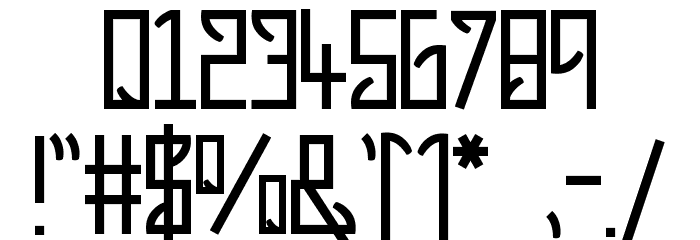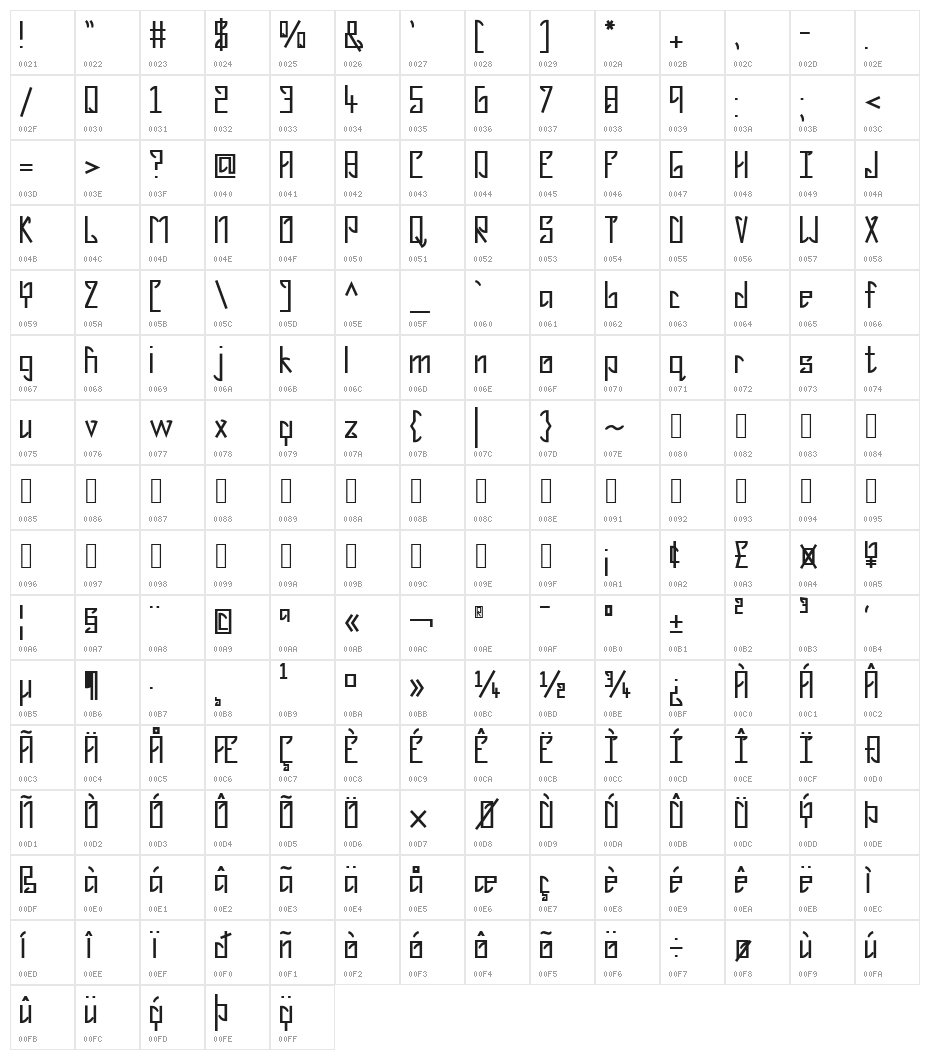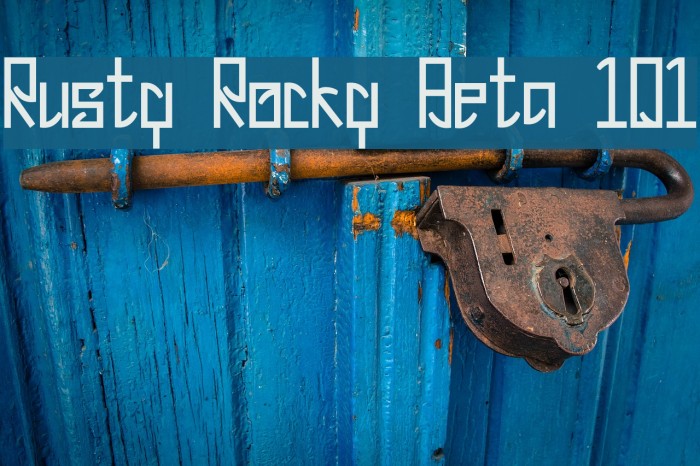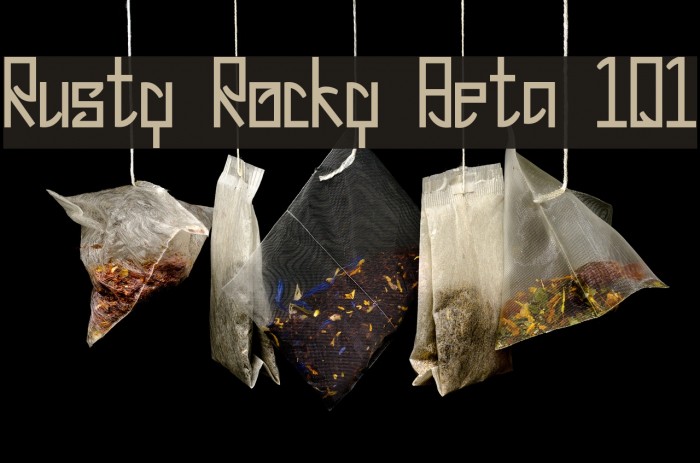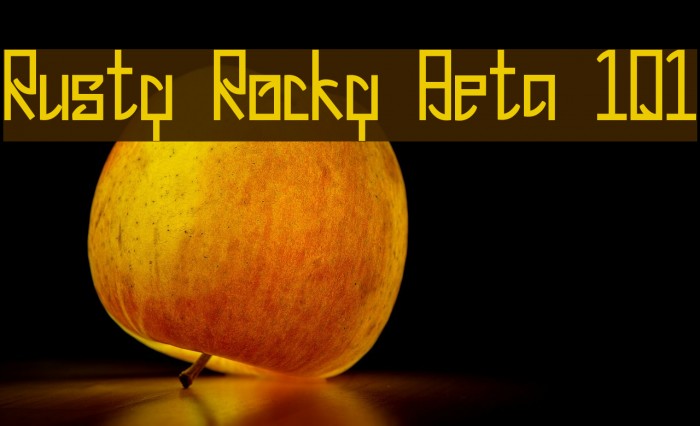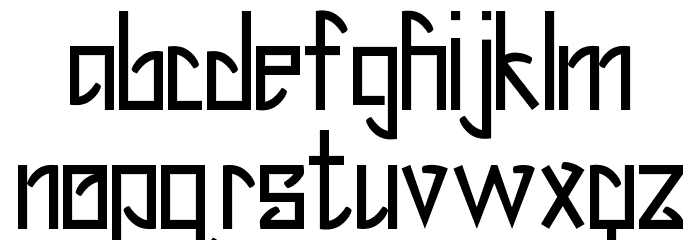
Rusty Rocky Beta 101 Font
Rusty Rocky Beta 101 Description
This font features a unique, angular design with a geometric and futuristic aesthetic. The characters are constructed with sharp, clean lines and distinct angles, giving it a modern and edgy appearance. The uppercase and lowercase letters maintain a consistent style, with a focus on symmetry and balance. Numbers and special characters follow the same design principles, ensuring uniformity across the typeface. The font's structure is bold and impactful, making it suitable for attention-grabbing headlines or titles. Its distinct style sets it apart from traditional fonts, offering a fresh and innovative look.